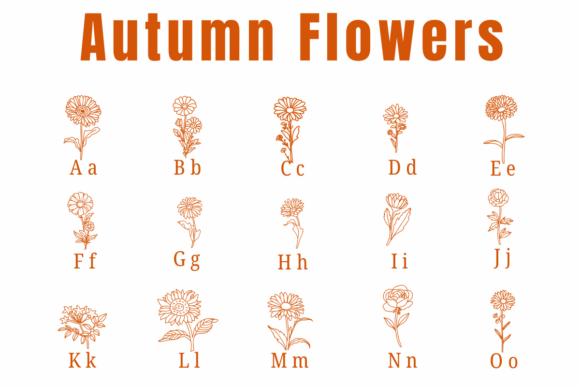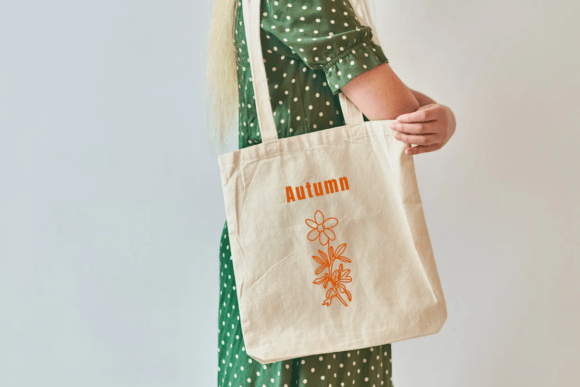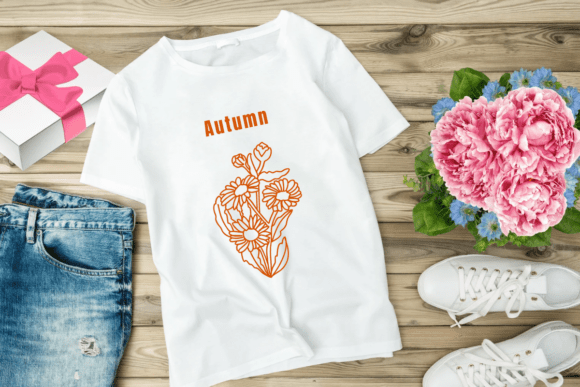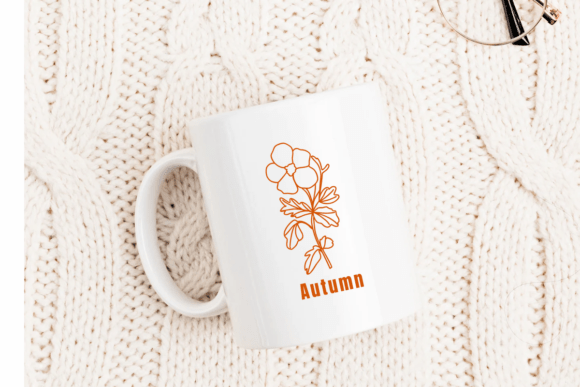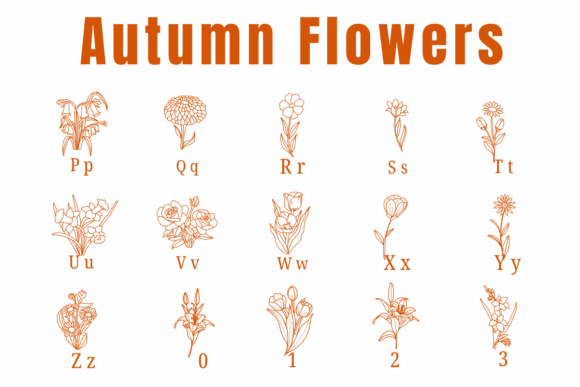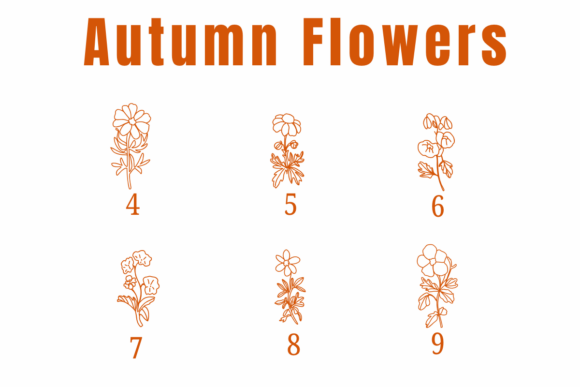
Introducing Autumn Flowers Font: Add a Touch of Whimsy to Your Designs
As the seasons change and autumn arrives, designers and crafters are on the lookout for inspiration to add a warm and cozy touch to their projects. If you’re looking for a unique and charming way to incorporate the beauty of autumn into your designs, look no further than the Autumn Flowers Font. This delightful dingbats font features beautifully detailed floral illustrations with an autumnal twist, perfect for seasonal designs, invitations, packaging, greeting cards, and craft projects.
What is Autumn Flowers Font?
Autumn Flowers Font is a hand-drawn dingbats font that showcases a collection of elegant and versatile floral doodles. Each illustration is meticulously crafted to capture the essence of autumn, with intricate details and a whimsical touch. The font is perfect for designers and crafters who want to add a natural and organic feel to their artwork.
Key Features of Autumn Flowers Font
- Beautifully detailed floral illustrations: Each illustration is hand-drawn with love and care, showcasing the beauty of autumn flowers.
- Autumnal twist: The illustrations feature a range of autumnal elements, including leaves, berries, and flowers, to add a seasonal touch to your designs.
- Elegant and versatile: The font is perfect for a range of projects, from invitations and greeting cards to packaging and craft projects.
- Hand-drawn botanical elements: The illustrations are carefully crafted to capture the essence of real flowers and foliage.
- Natural and whimsical: The font adds a touch of whimsy and natural charm to your artwork, perfect for designers and crafters who want to create unique and eye-catching designs.
Uses for Autumn Flowers Font
Autumn Flowers Font is a versatile font that can be used in a range of projects, including:
- Seasonal designs: Add a touch of autumn to your designs with this charming font.
- Invitations: Create beautiful and unique invitations for weddings, parties, and other special occasions.
- Packaging: Add a natural and organic touch to your product packaging with this elegant font.
- Greeting cards: Create beautiful and heartfelt greeting cards for friends and family.
- Craft projects: Use the font to add a touch of whimsy to your craft projects, such as scrapbooking, journaling, and more.
Tips for Using Autumn Flowers Font
Here are a few tips for getting the most out of Autumn Flowers Font:
- Experiment with different colors: Try out different color schemes to find the perfect combination for your design.
- Mix and match illustrations: Combine different illustrations to create a unique and eye-catching design.
- Use with other fonts: Pair Autumn Flowers Font with other fonts to create a beautiful and harmonious design.
- Don’t be afraid to get creative: The font is versatile and can be used in a range of creative projects.
Autumn Flowers Font is a charming and versatile font that is perfect for designers and crafters who want to add a touch of whimsy and natural charm to their projects. With its beautifully detailed floral illustrations and autumnal twist, this font is sure to inspire your creativity and help you create unique and eye-catching designs. So why not give it a try and see what amazing projects you can create?